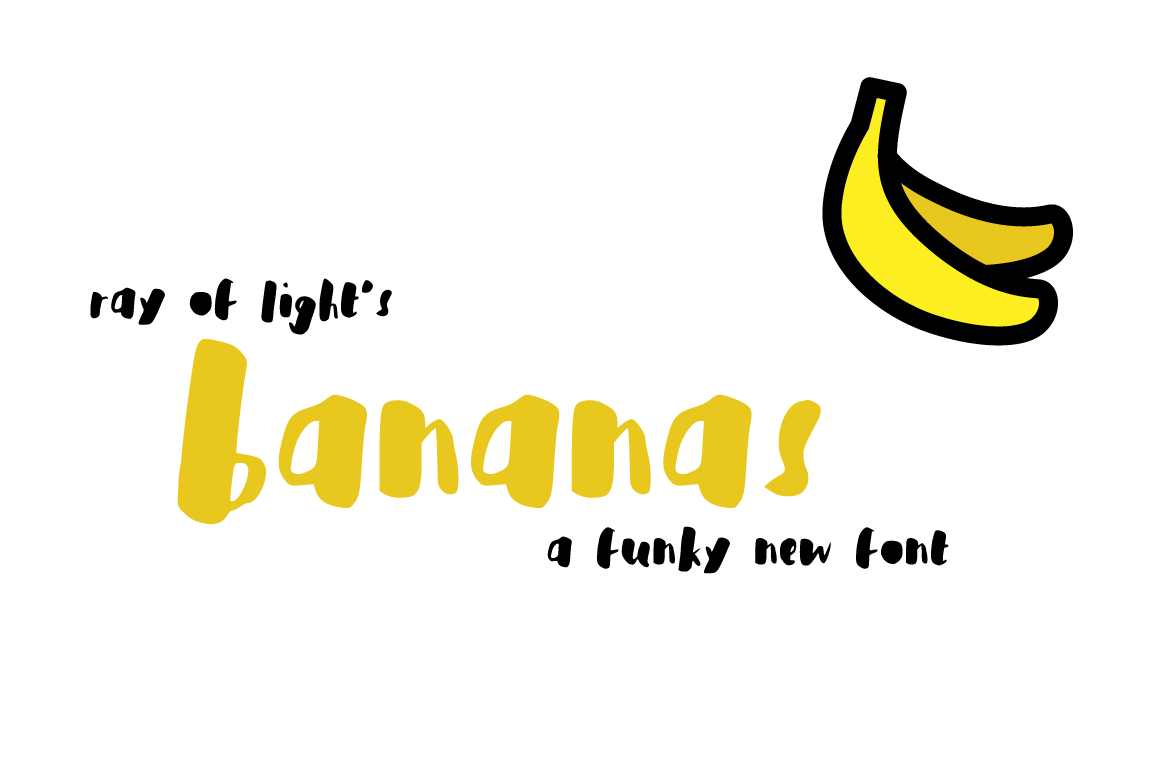
Bananas Brush Font
Bananas is a funky, handmade brush font. I had a lot of fun putting it together and even more fun designing with it!
Bananas includes over one hundred characters: a full set of capital and lowercase letters, numerals, punctuation marks, and a variety of extra symbols.